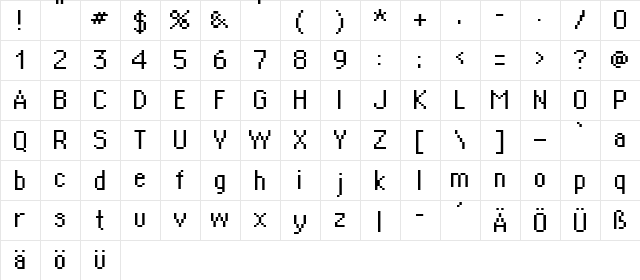
supertext _high
Design Context for supertext Typeface
supertext offers clean, dependable letterforms without strong stylistic allegiance, making it a practical choice for designers who need flexibility.